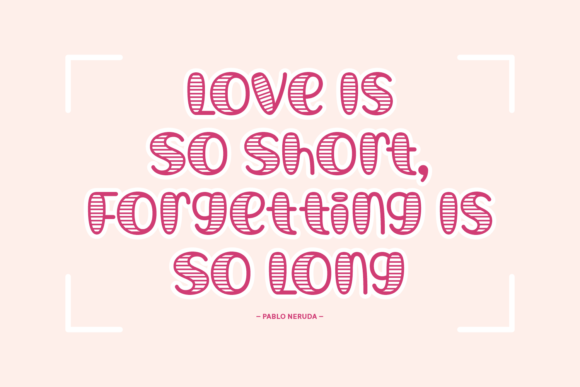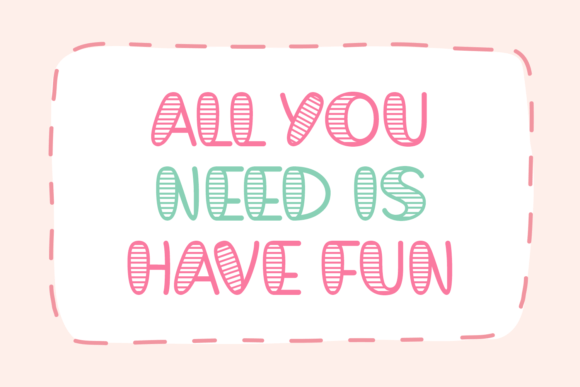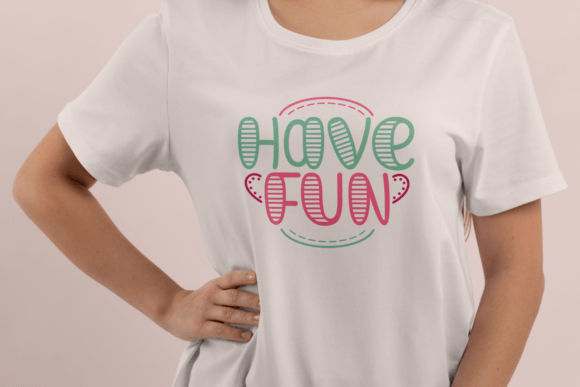
Introduction to Sendy Choise Font
Sendy Choise is a cute and casual handwritten decorative font.
It is the perfect addition to your scrapbooks, social media, logos, business cards and so much more .
Key Features of Sendy Choise Font
Why Choose Sendy Choise Font?
Sendy Choise Font offers exceptional quality and versatility, making it a valuable addition to your design toolkit. Whether you’re creating for personal projects or commercial use, Sendy Choise Font delivers professional results.